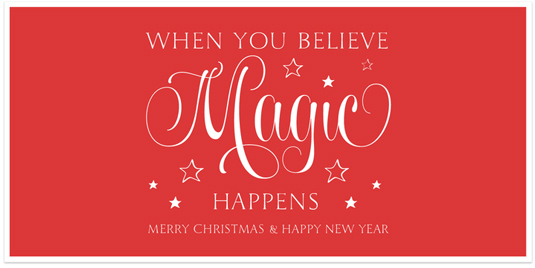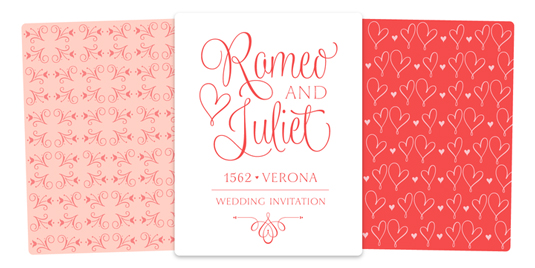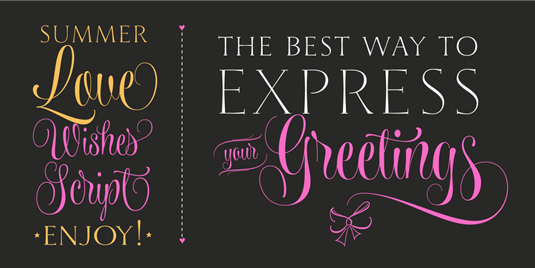
Font of the day: Wishes Script
Every day we showcase the best fonts on the web. Today it's Wishes Script by Sabrina Mariela Lopez.
Wishes Script by Sabrina Mariela Lopez
Express your festive greetings in style with Wishes Script, a typeface created by designer Sabrina Mariela Lopez. Available from MyFonts, the design is described as: 'With delicate and flowing curves which blend english style with lettering, Wishes Script works perfectly in greeting cards, invitations, weddings, posters, magazines, fashion world, logos, packagings and more.'